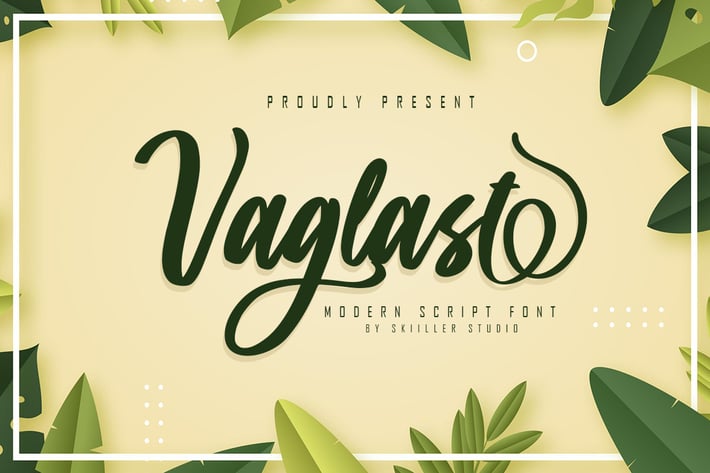
Vaglast - Modern Script Font
Vaglast is a Modern script font combined with a rapi so it looks elegant, suitable to support a variety of designs and your business
+ Stylistic Alternate
+ Stylistic set 01
+ Stylistic set 02
+ Basic Latin Language Support (AÀÁÂÃÄÅCÇDÐEÈÉÊËIÌÍÎÏÑOØÒÓÔÕÖUÙÜÚÛWYÝŸÆß )